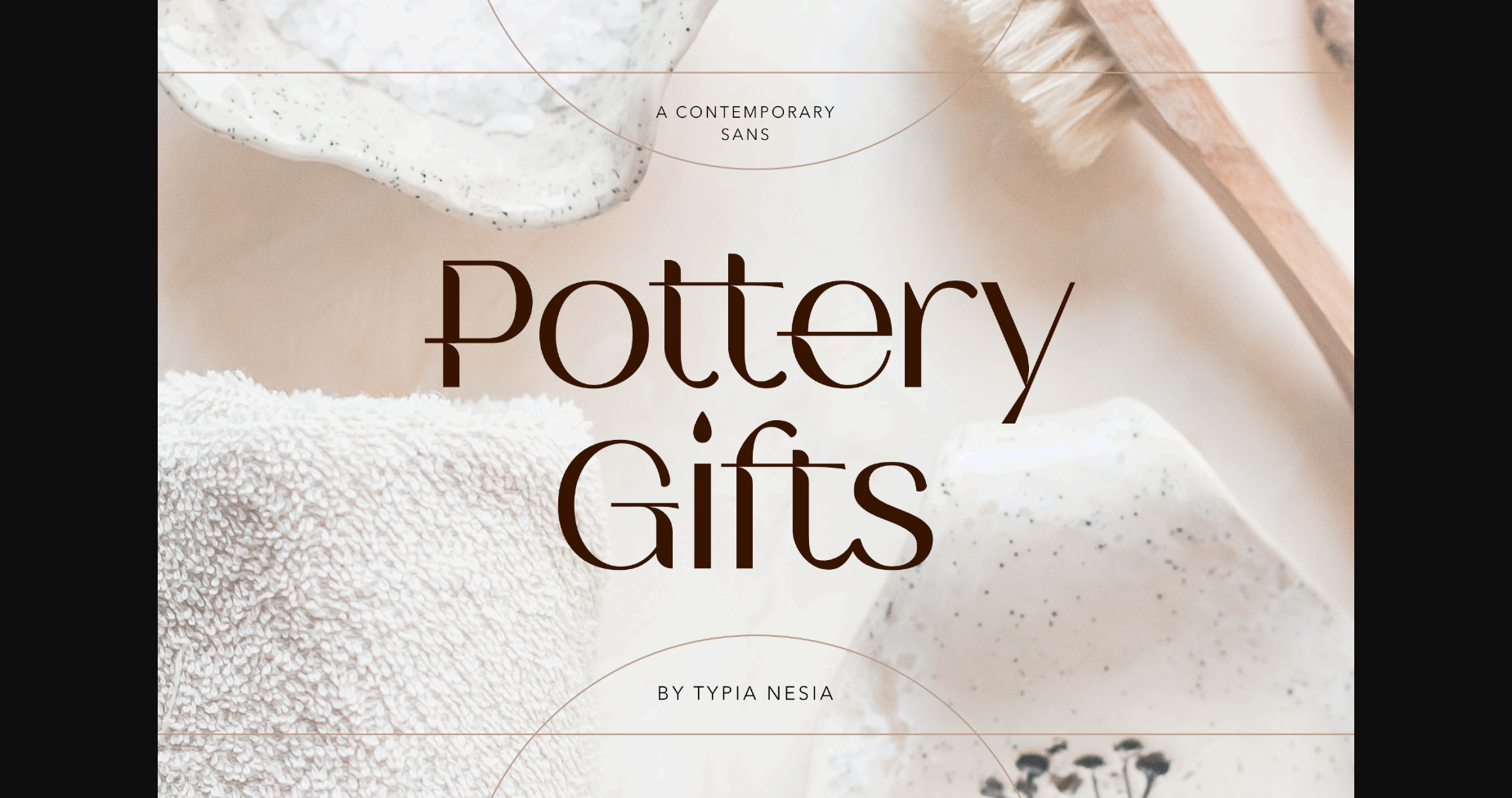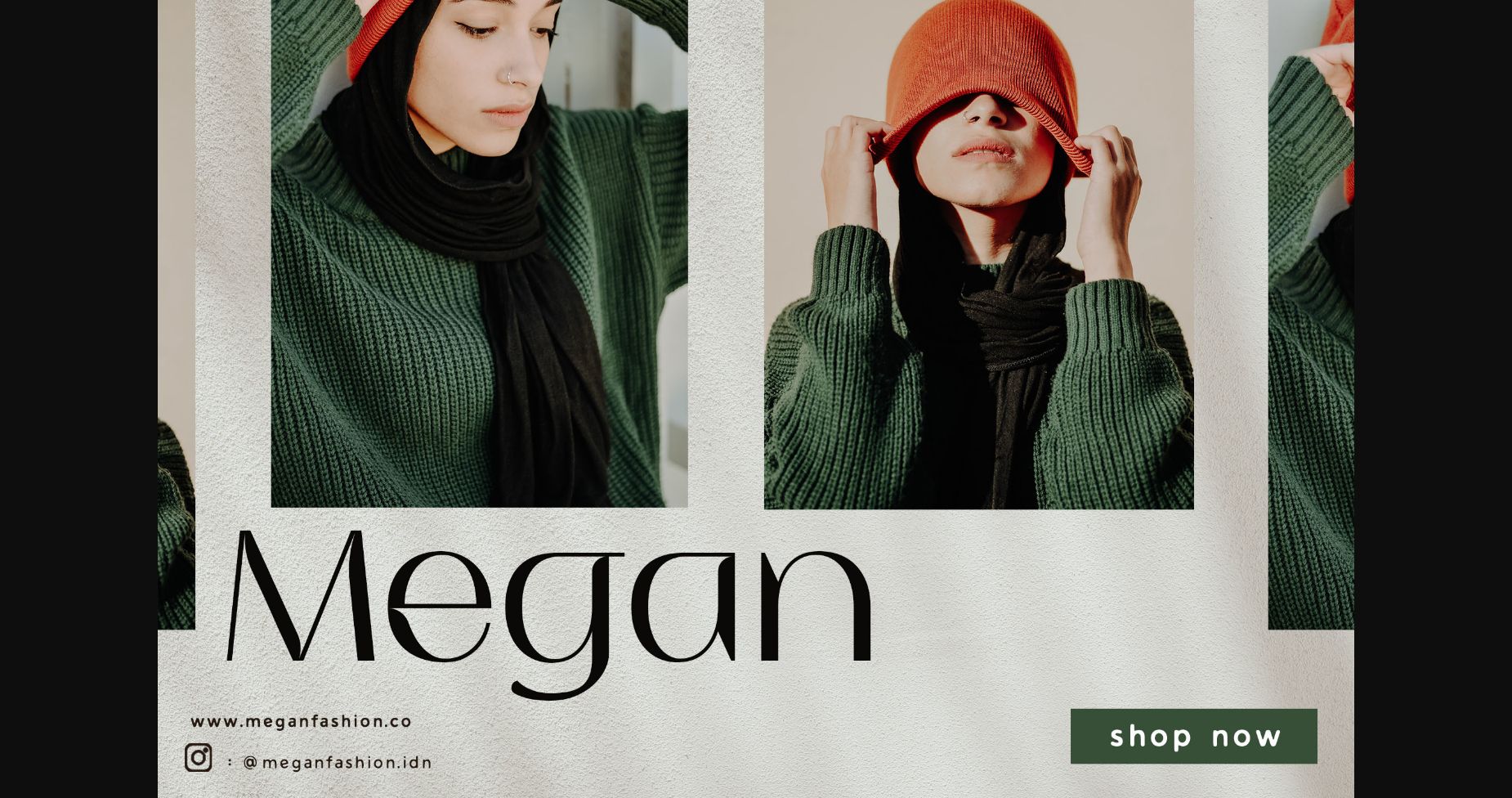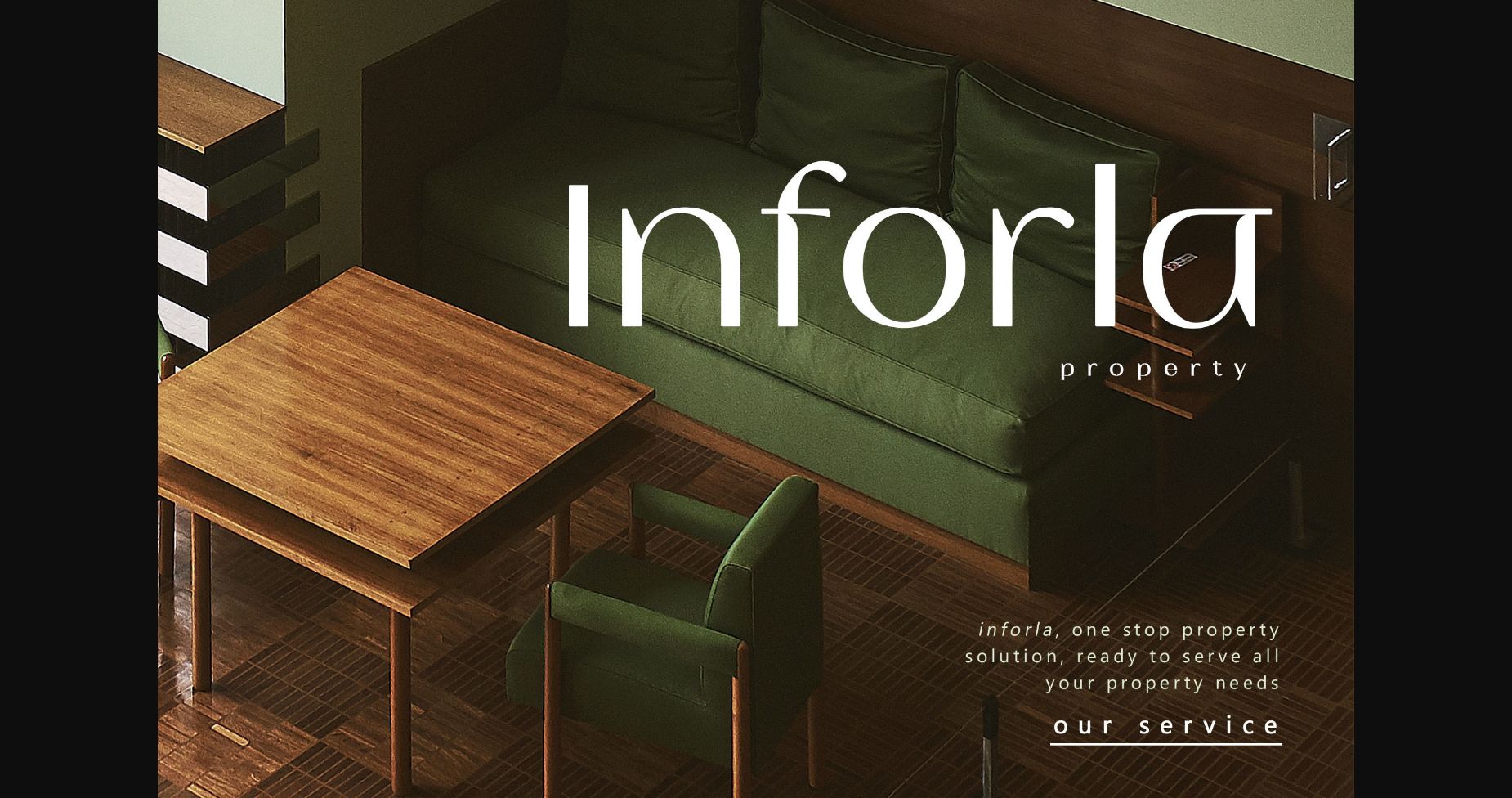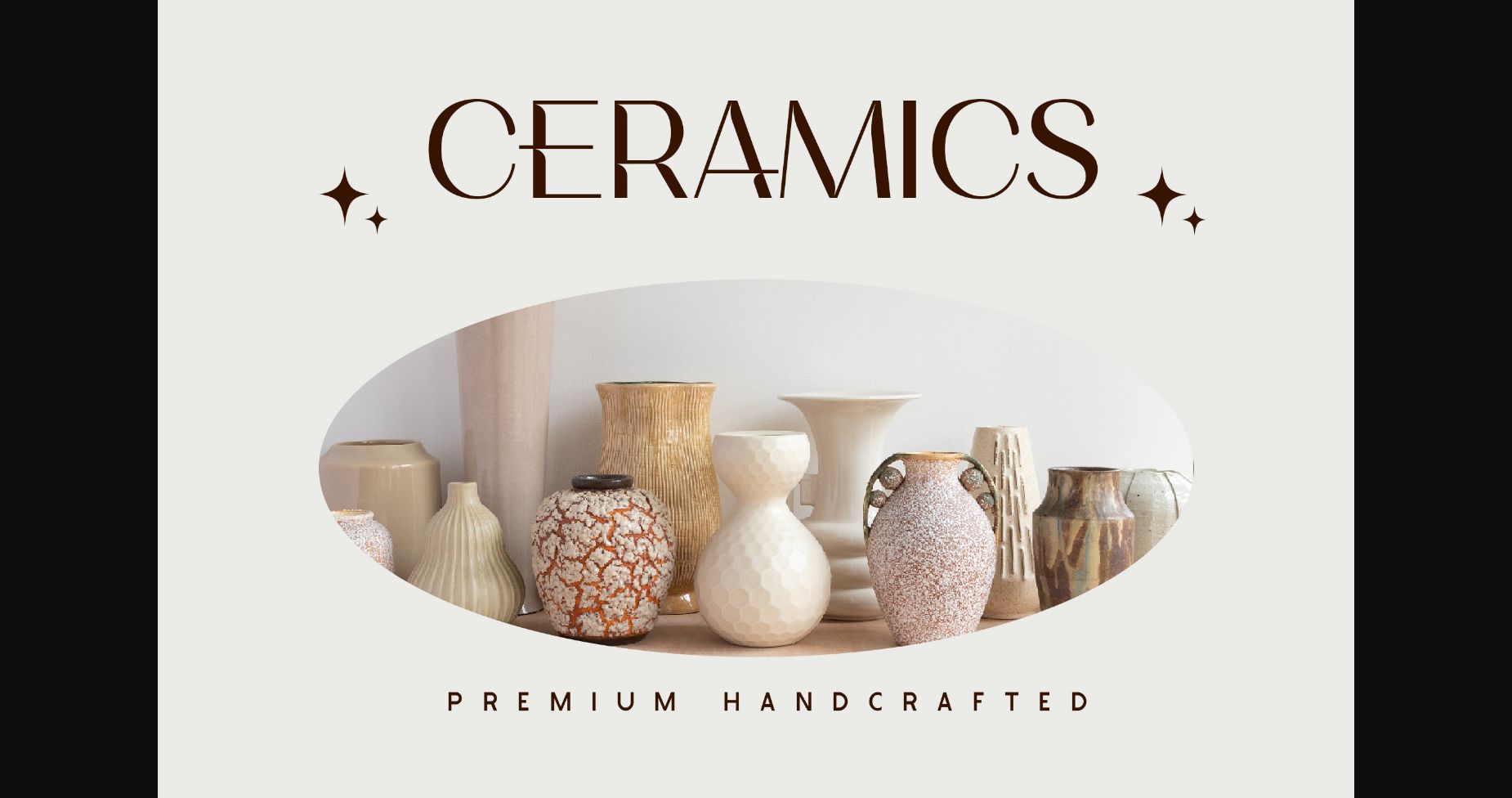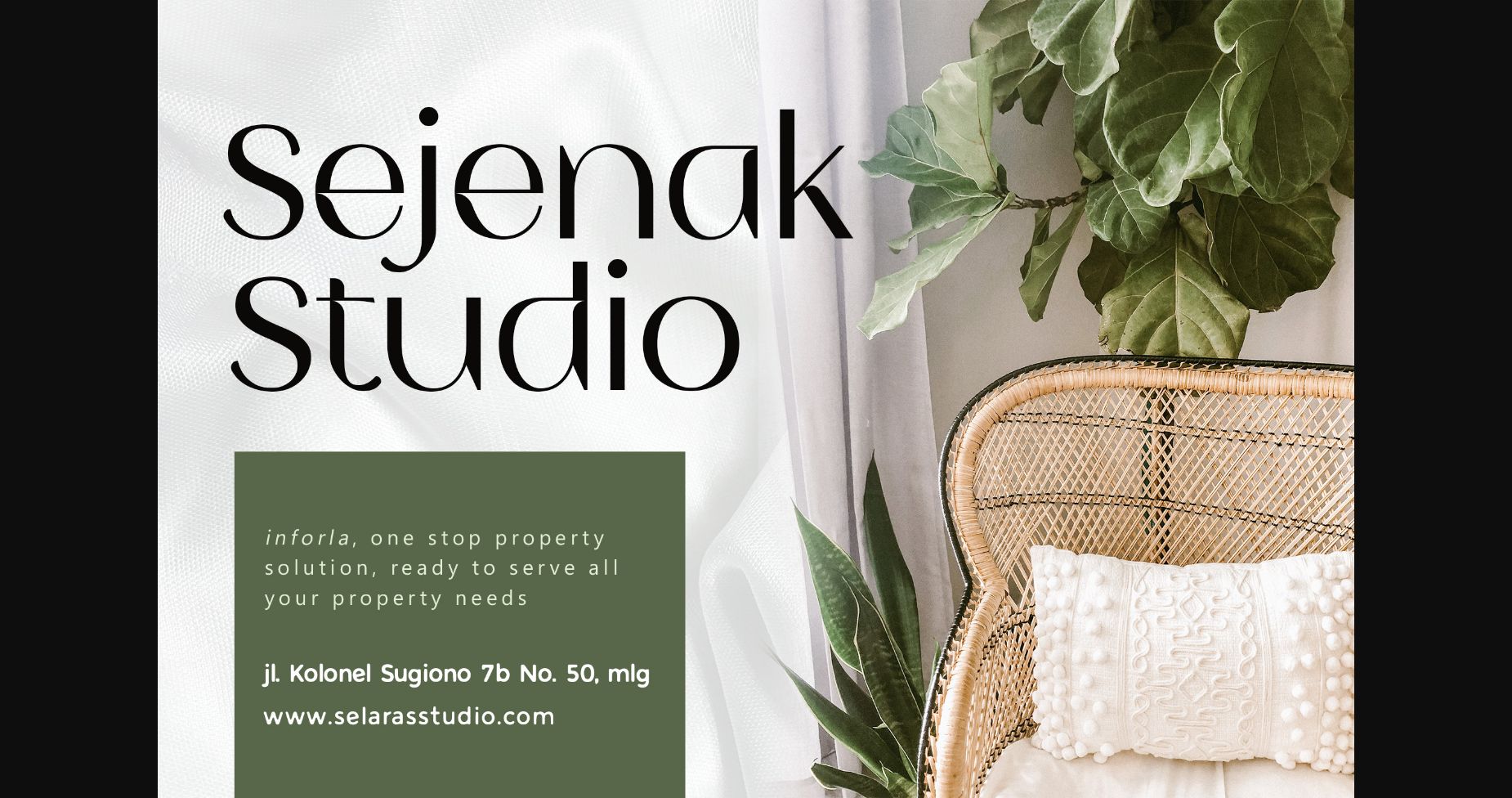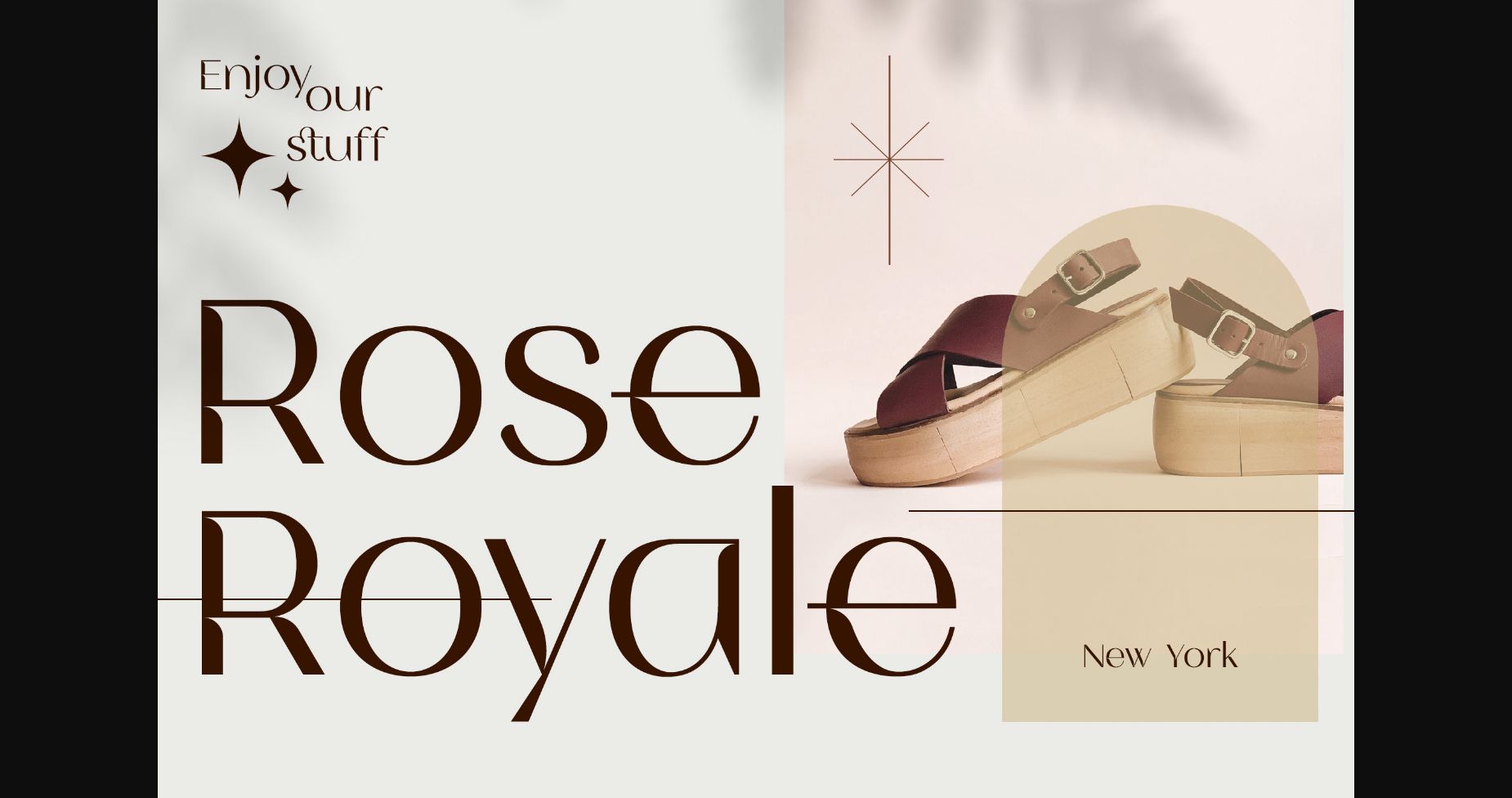
Pottery Gifts Font
About Pottery Gifts Font
Pottery Gifts is a particularly elegant, thin lettered and delicate sans serif font. This font was particularly crafted for those who need a beautiful and refreshing look to their designs.